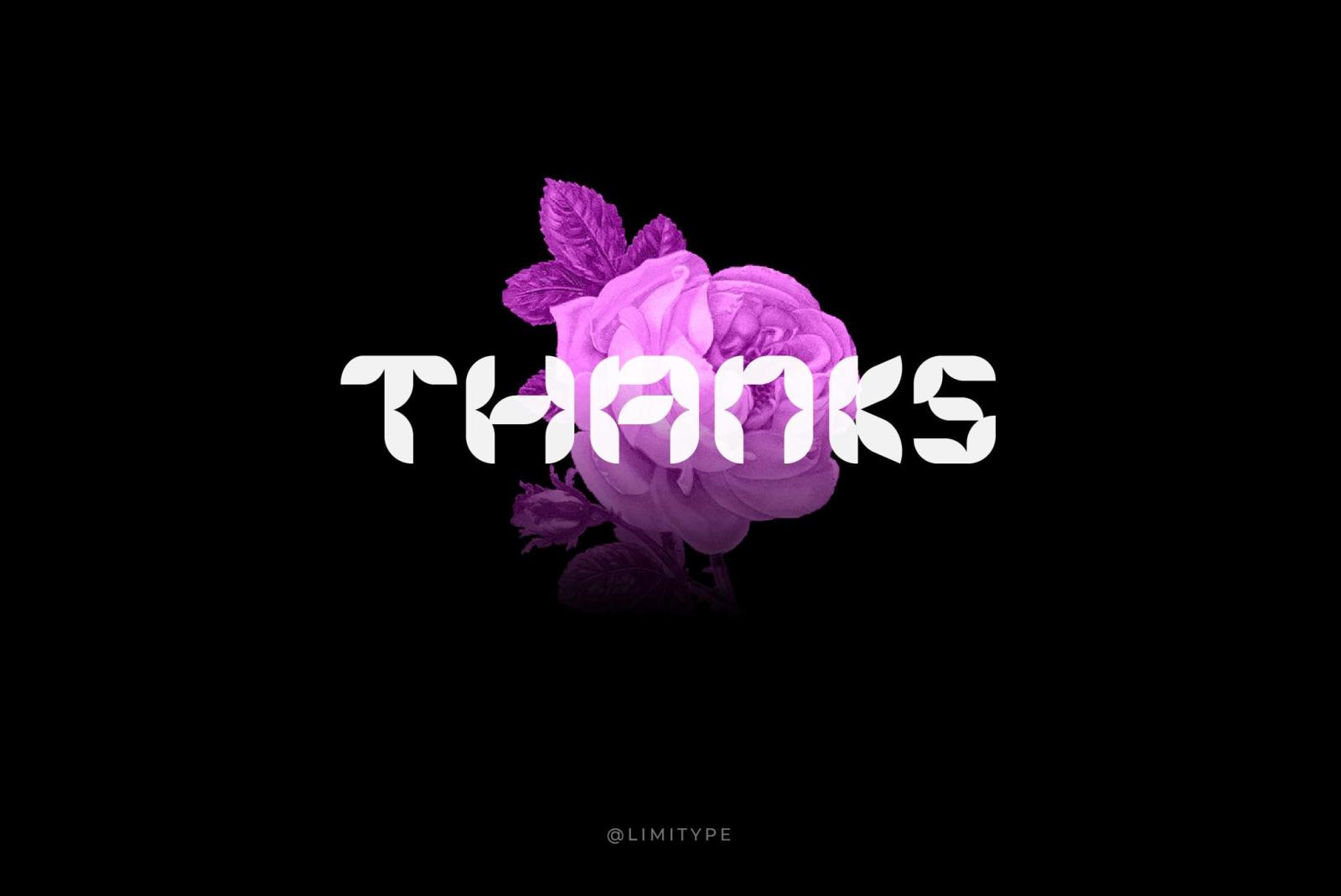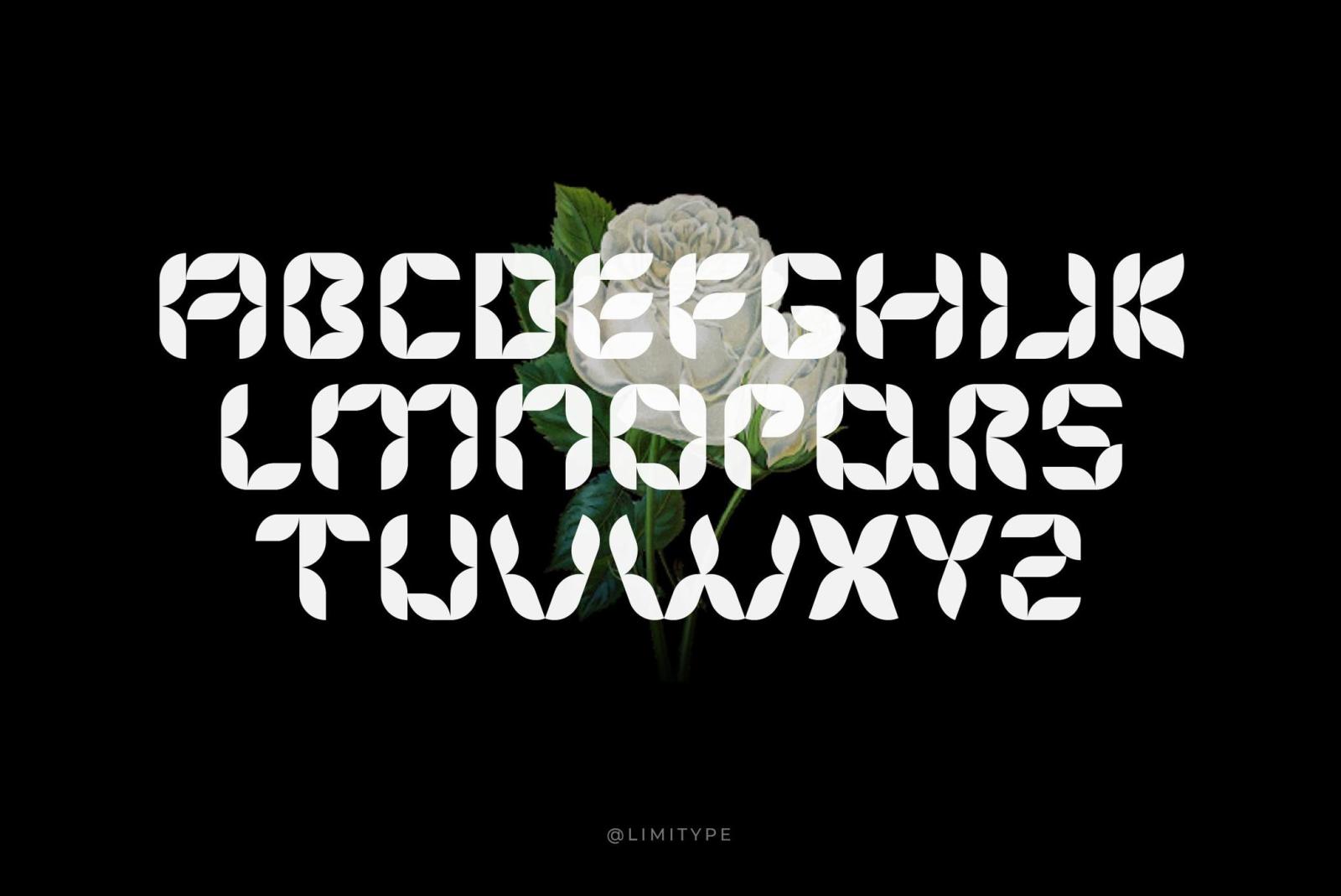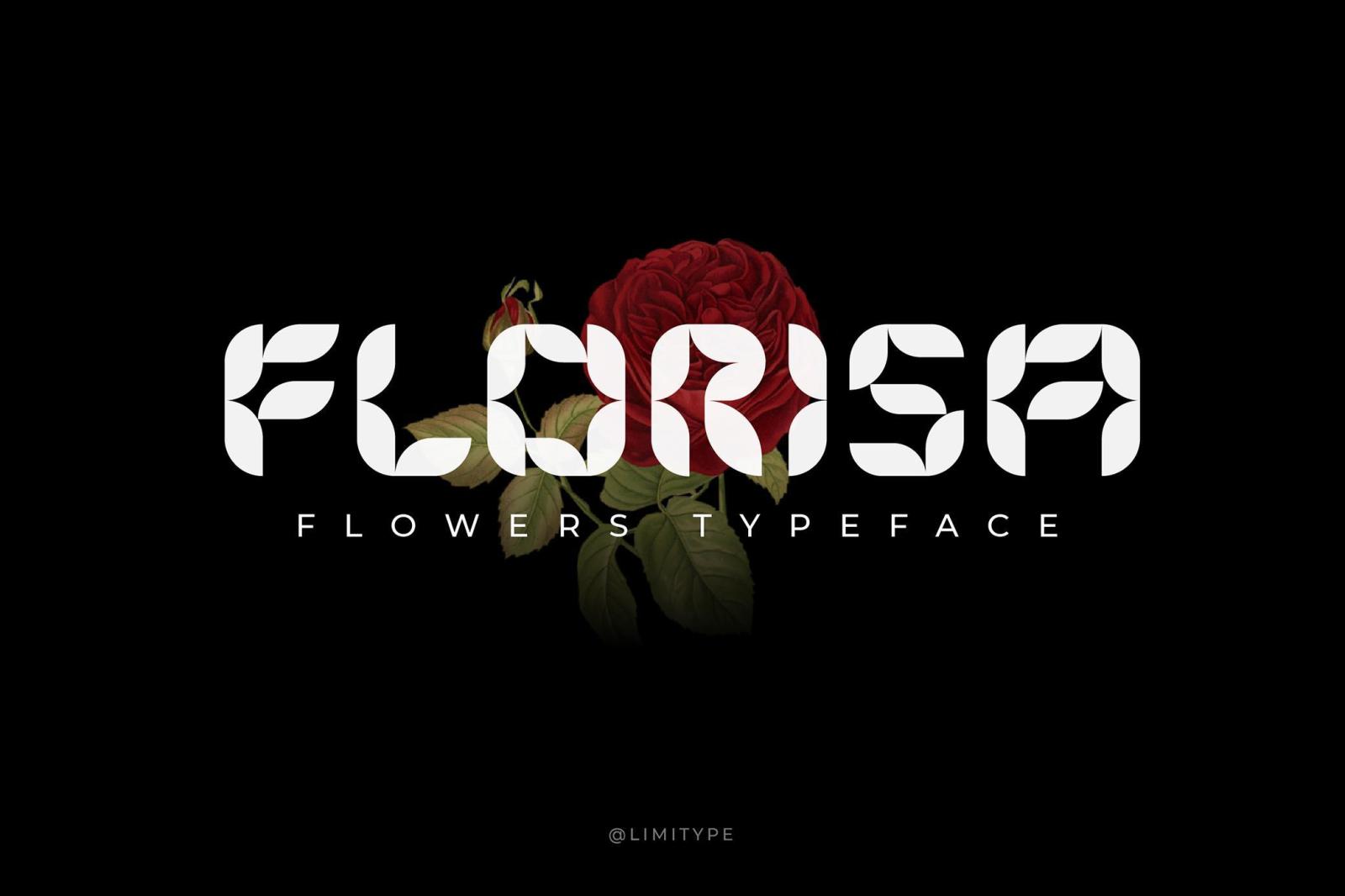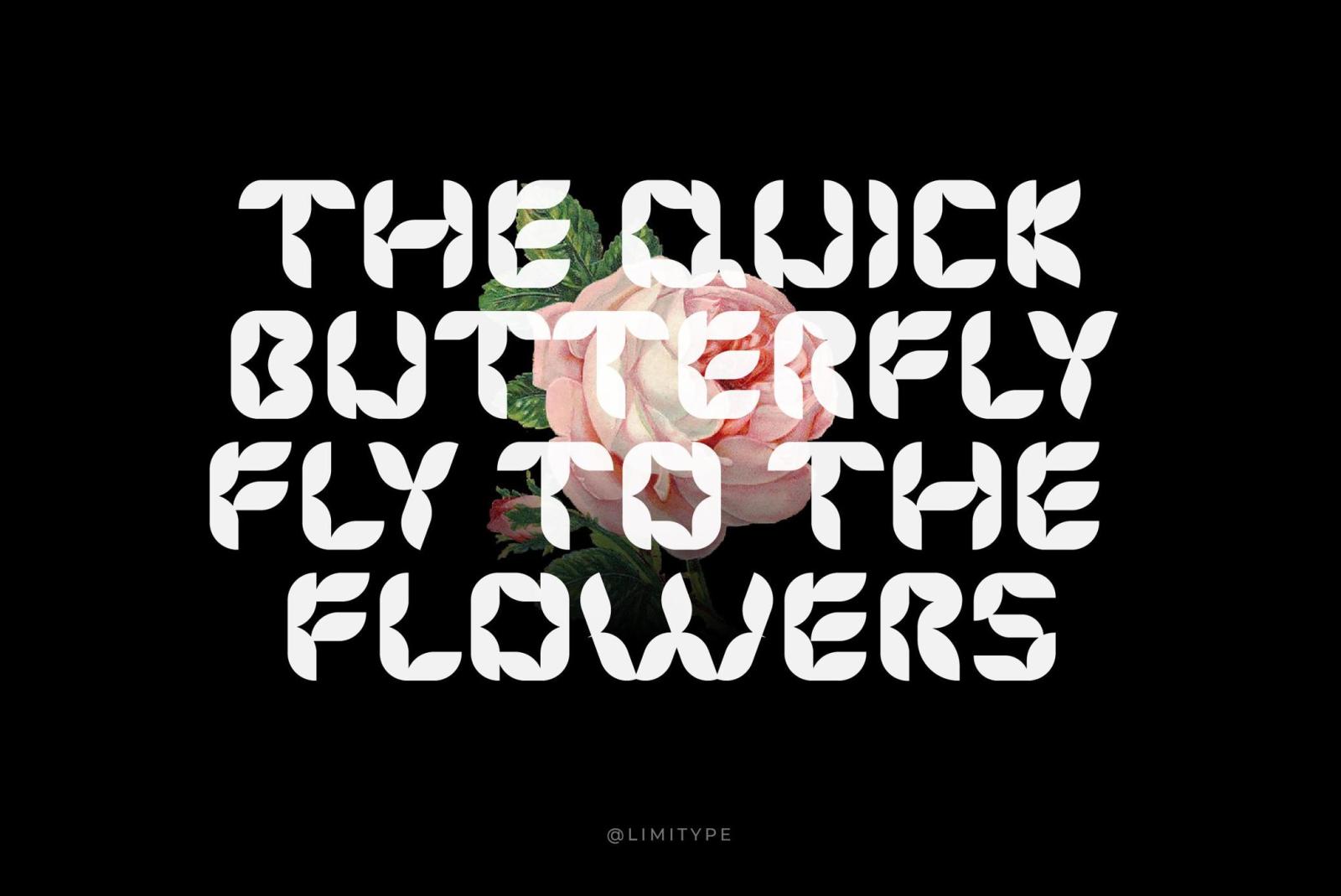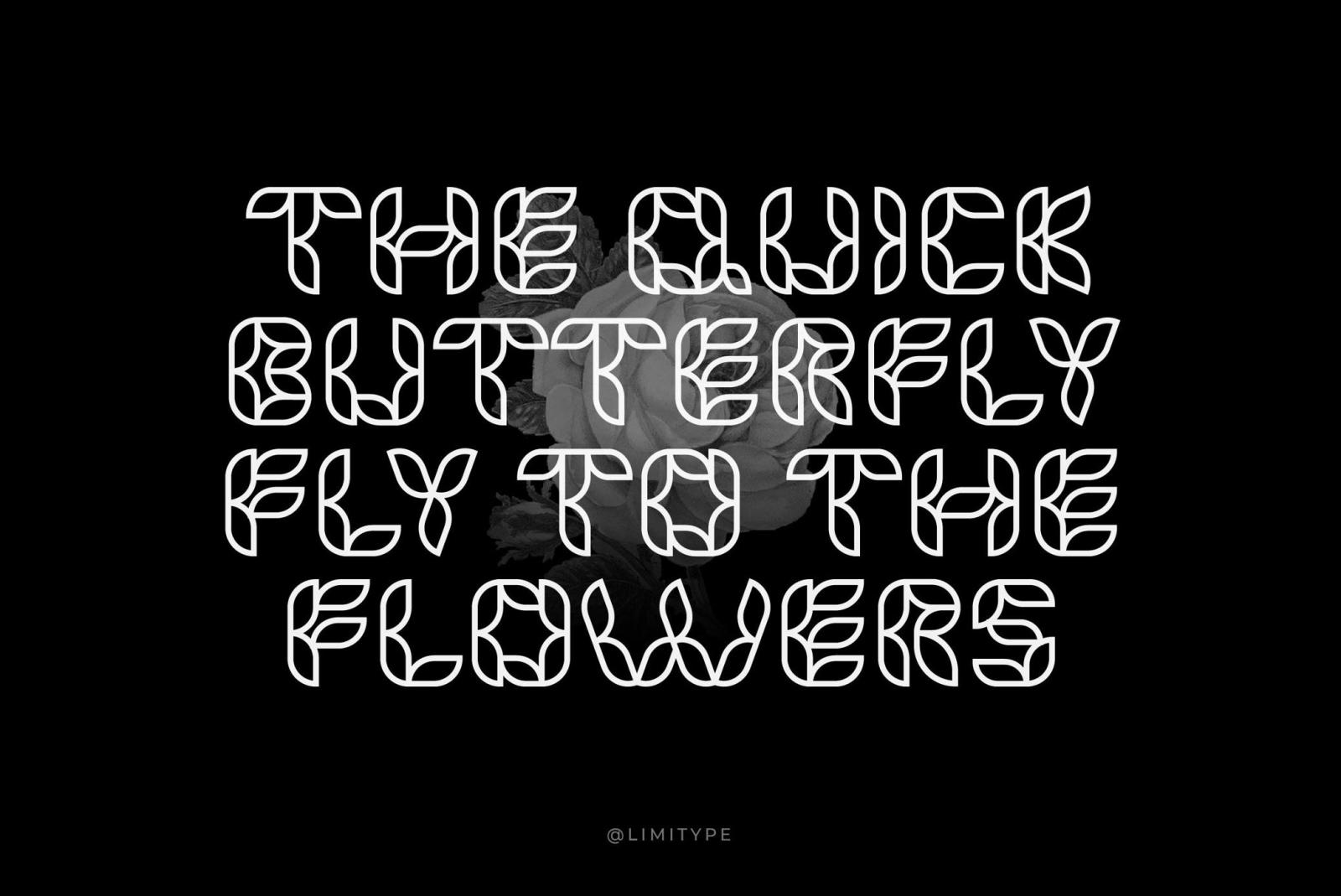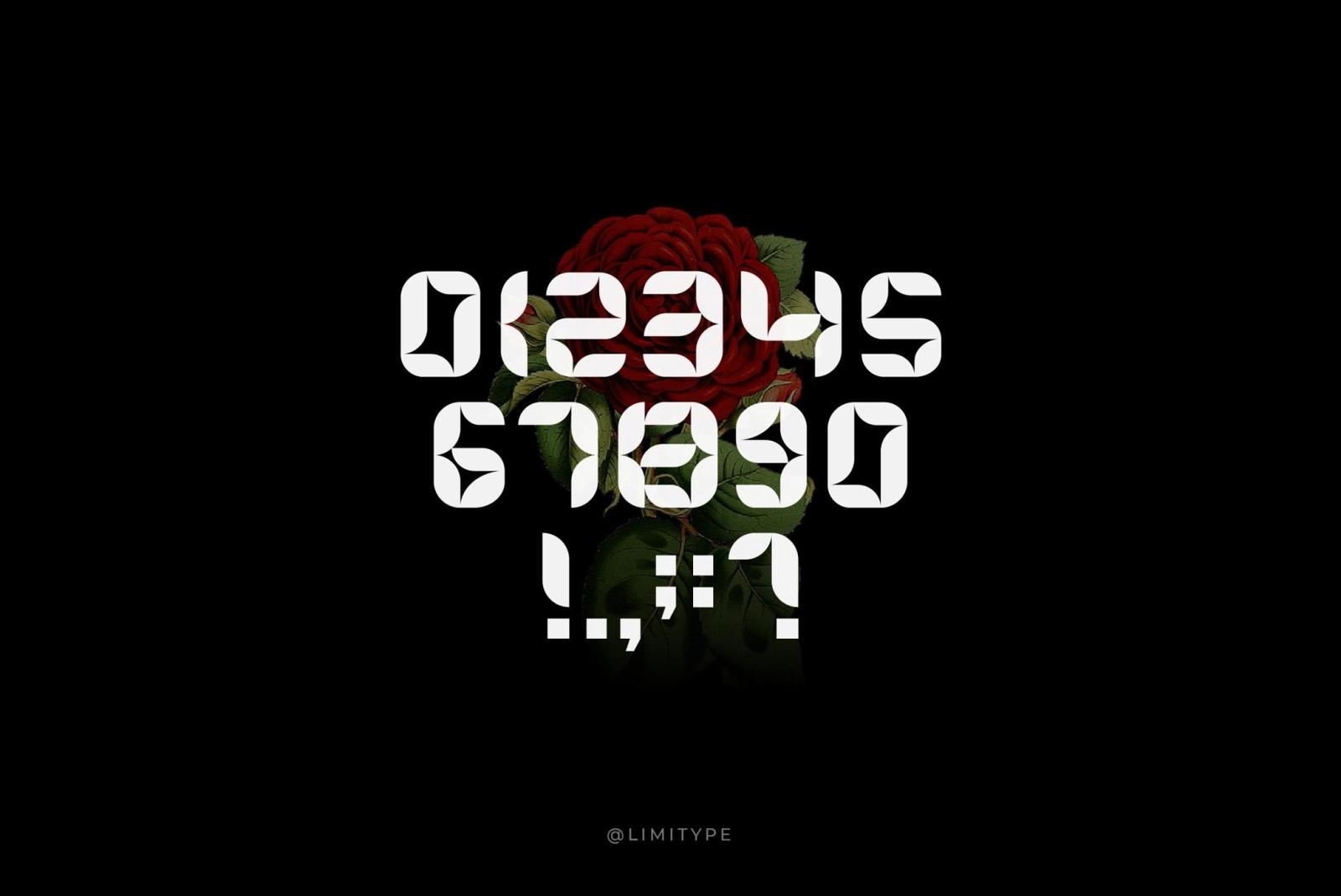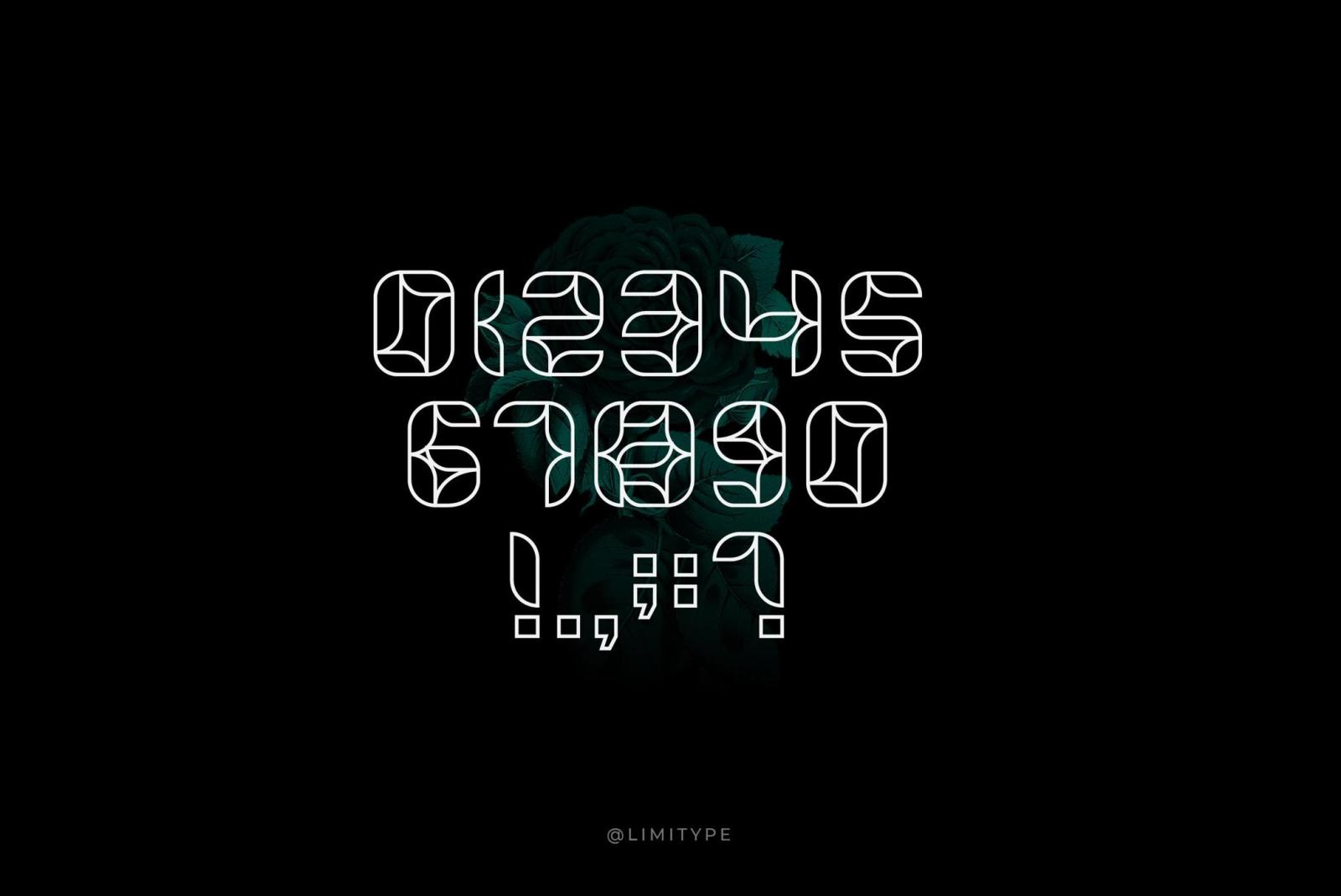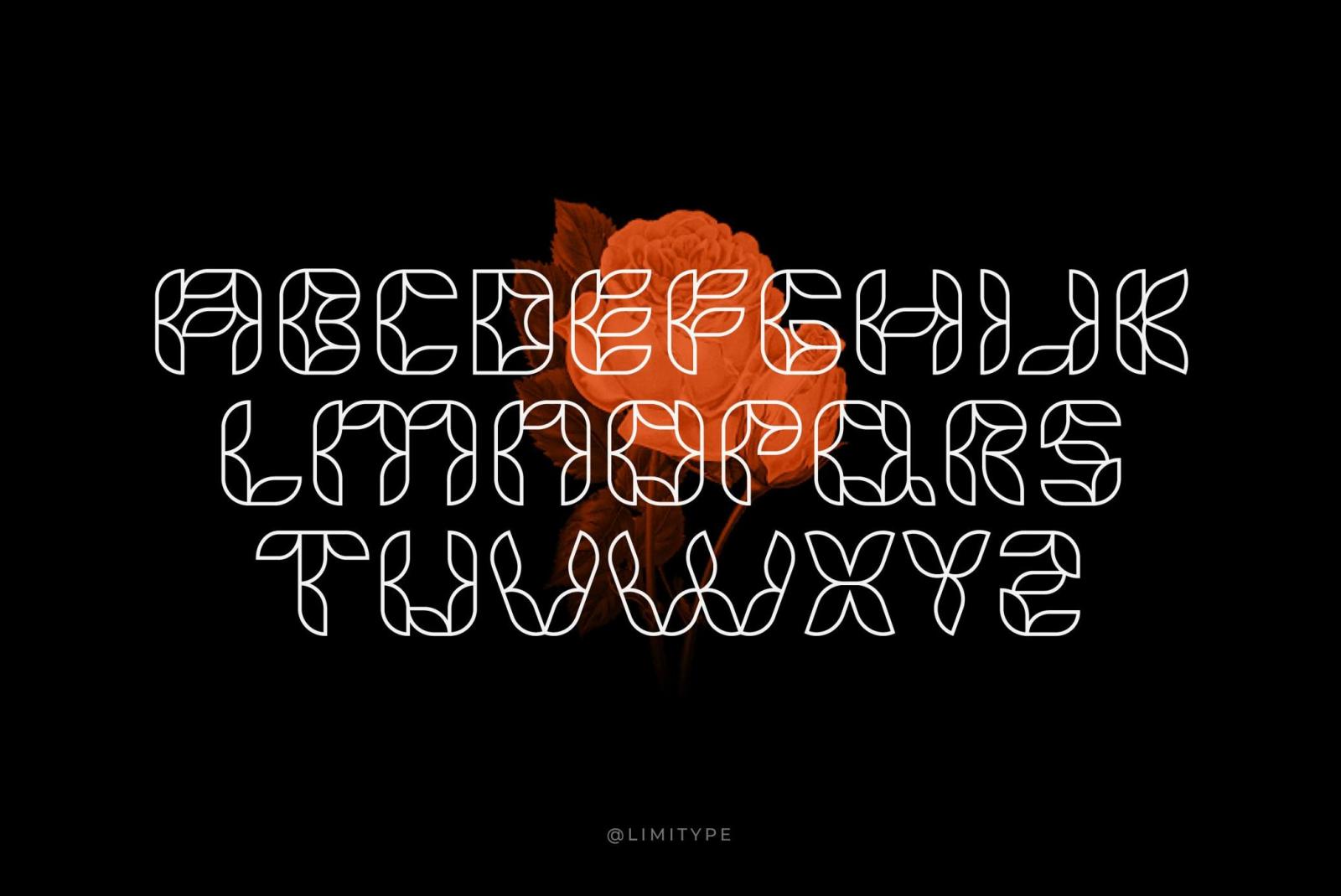
Florisa — Flowers Font
Introducing Florisa — a typeface with roots in the organic beauty of flower petals but somehow giving a distinct futuristic edge. Yep, sounds kinda strange, but it works.
Guess it's because the glyphs are similar to the segmented digits in an electronic watch. The font provides enough versatility with all the basics — uppercase letters, numbers, and some punctuation symbols. An ideal choice for when you need to make your headline look fancy or want to give the logo a surprising twist. Really, it’s a rare kind of font that will make your design feel a little flowery, but not too in-your-face flowery, you know?